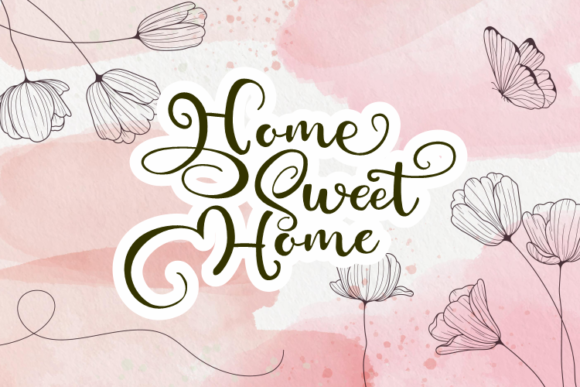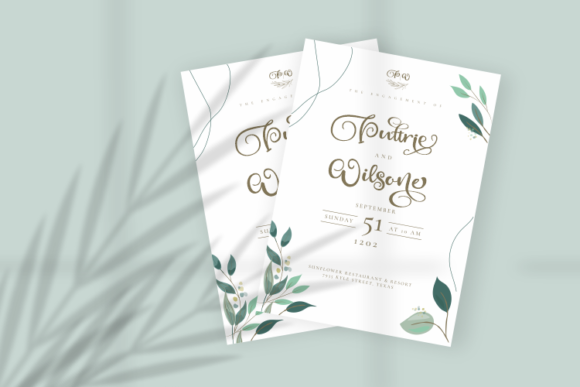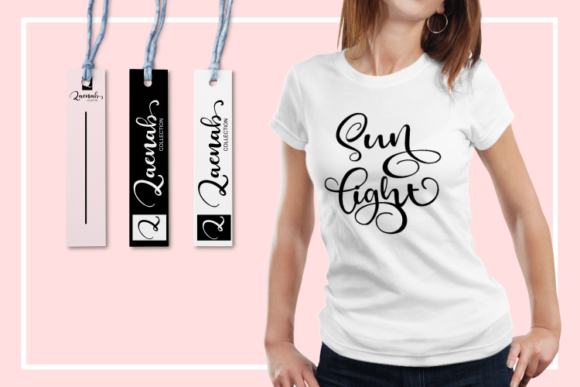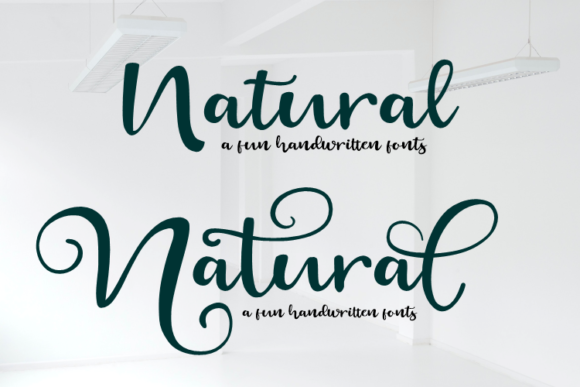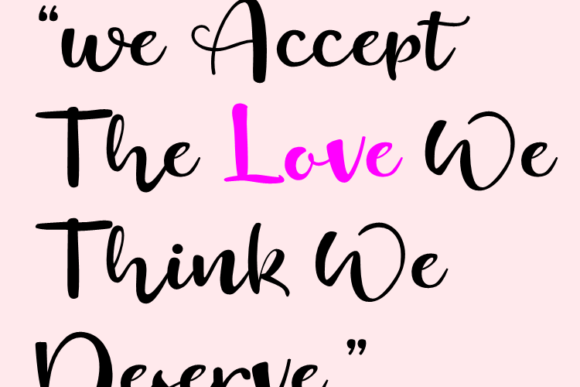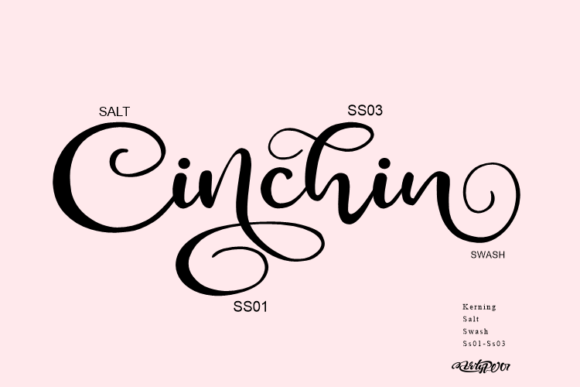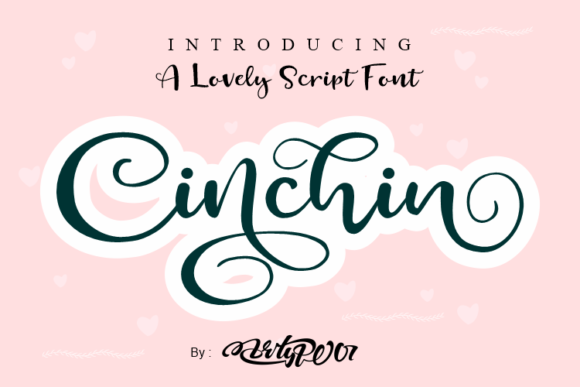
Cinchin Font: A Charming and Inspiring Handwritten Font for Your Creative Projects
Are you a designer or crafter looking for a unique and romantic font to add a touch of elegance to your creative projects? Look no further than Cinchin Font, a beautiful handwritten font that is sure to capture your heart. With its charming and inspiring style, Cinchin Font is perfect for creating lovely designs that will leave a lasting impression.
What is Cinchin Font?
Cinchin Font is a stunning handwritten font that is designed to add a touch of romance and whimsy to your designs. Its unique and elegant style makes it perfect for a wide range of creative projects, from wedding invitations and party decorations to branding and advertising materials. With its flowing lines and delicate curves, Cinchin Font is sure to add a touch of sophistication and charm to any design.
One of the best things about Cinchin Font is that it is PUA (Private Use Area) encoded, which means that you can access all of the glyphs and swashes with ease. This makes it simple to create beautiful and intricate designs, without having to worry about complicated font editing or special software. With Cinchin Font, you can simply select the glyphs and swashes you want to use, and get creative!
Romantic Style and Endless Design Possibilities
Cinchin Font’s romantic style is one of its standout features, and it’s perfect for designers and crafters who want to create designs that are elegant, sophisticated, and eye-catching. Whether you’re creating wedding invitations, party decorations, or social media graphics, Cinchin Font is sure to add a touch of romance and whimsy to your designs. And with its endless design possibilities, you can use Cinchin Font to create a wide range of creative projects, from logos and branding materials to packaging and advertising.
Why Choose Cinchin Font?
So why choose Cinchin Font for your creative projects? Here are just a few reasons why this beautiful handwritten font is a great choice:
- Unique and elegant style: Cinchin Font has a unique and elegant style that is sure to add a touch of sophistication and charm to any design.
- PUA encoded for easy access: With PUA encoding, you can access all of the glyphs and swashes with ease, making it simple to create beautiful and intricate designs.
- Romantic style: Cinchin Font’s romantic style is perfect for designers and crafters who want to create designs that are elegant, sophisticated, and eye-catching.
- Endless design possibilities: With Cinchin Font, you can create a wide range of creative projects, from logos and branding materials to packaging and advertising.
- Experiment with different glyphs and swashes: With PUA encoding, you can access all of the glyphs and swashes with ease. Experiment with different combinations to create unique and eye-catching designs.
- Use Cinchin Font for headings and titles: Cinchin Font is perfect for headings and titles, and can add a touch of elegance and sophistication to any design.
- Pair Cinchin Font with other fonts: Cinchin Font can be paired with other fonts to create a wide range of design effects. Experiment with different font combinations to find the perfect look for your design.
Cinchin Font is a beautiful handwritten font that is perfect for designers and crafters who want to add a touch of elegance and romance to their creative projects. With its unique and elegant style, PUA encoding for easy access, and endless design possibilities, Cinchin Font is a great choice for anyone looking to create stunning designs. So why wait? Download Cinchin Font today, and start creating your own lovely designs!